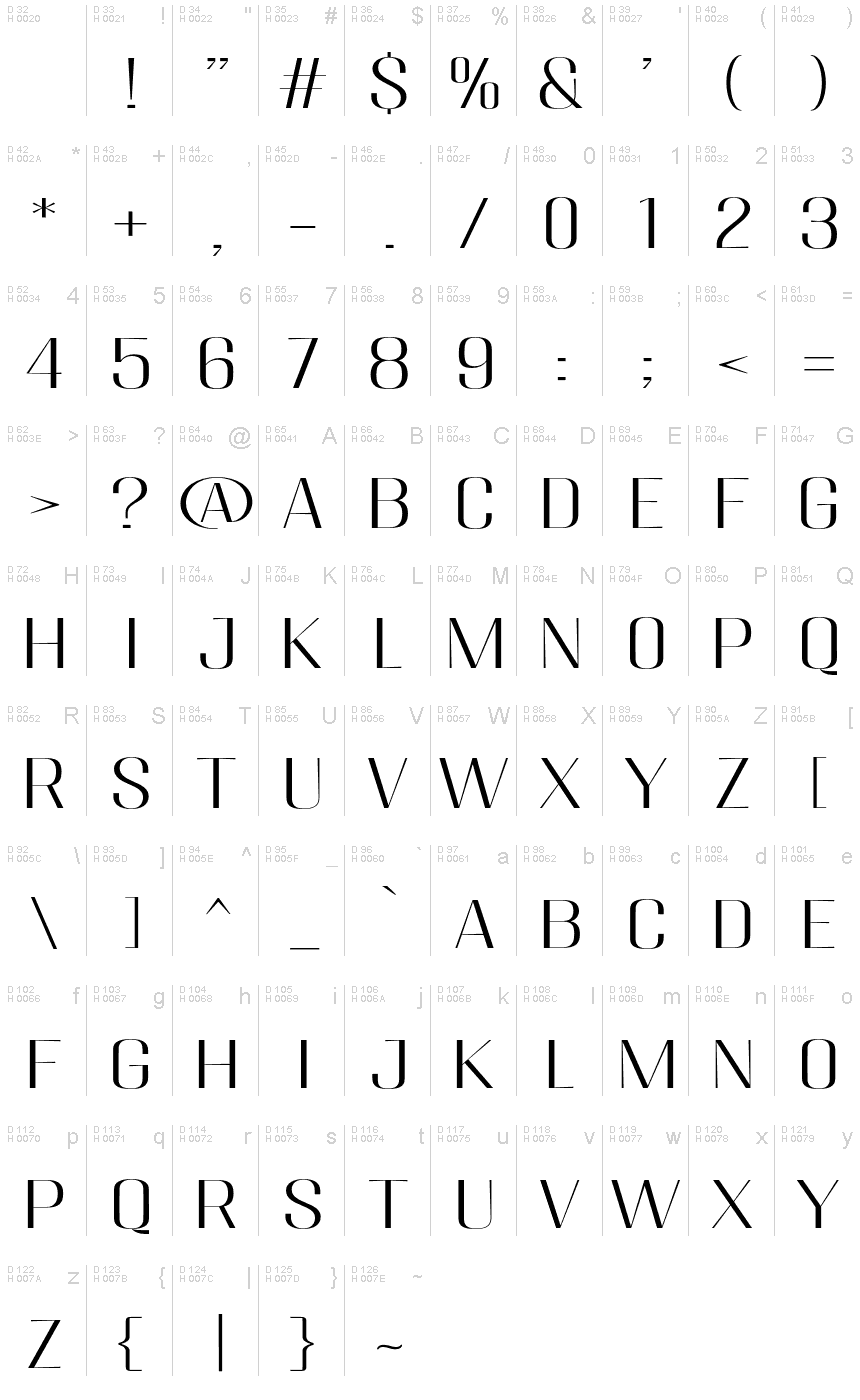
Migha-LightExpanded
Migha Light Expanded is a sleek and modern sans serif font designed by the talented Seniors Studio. With its light weight and expanded width, this font is perfect for projects that require elegance and sophistication. It's ideal for creating stylish logos, fashion branding, editorial designs, and much more. The Migha font family offers a range of weights that can be used to create a harmonious design. Give your designs an extra touch of class with Migha Light Expanded.